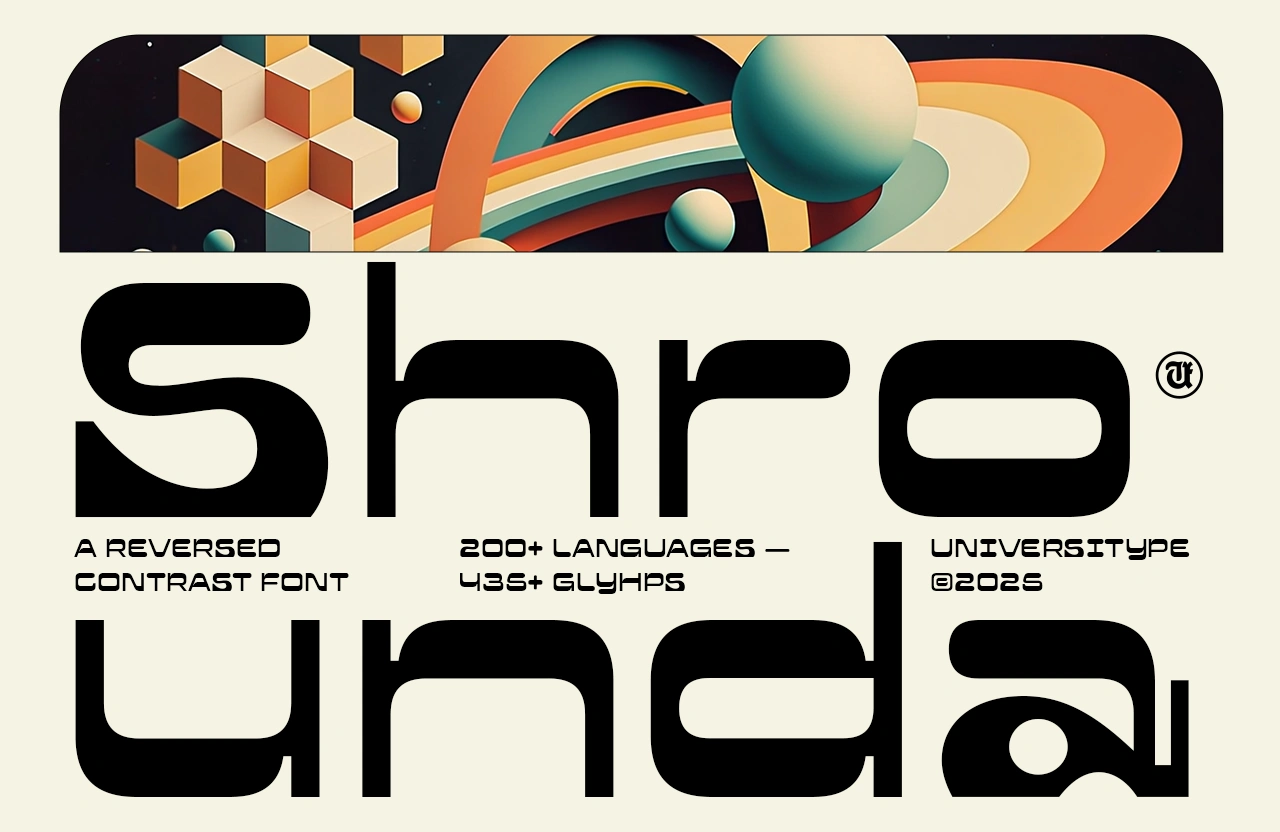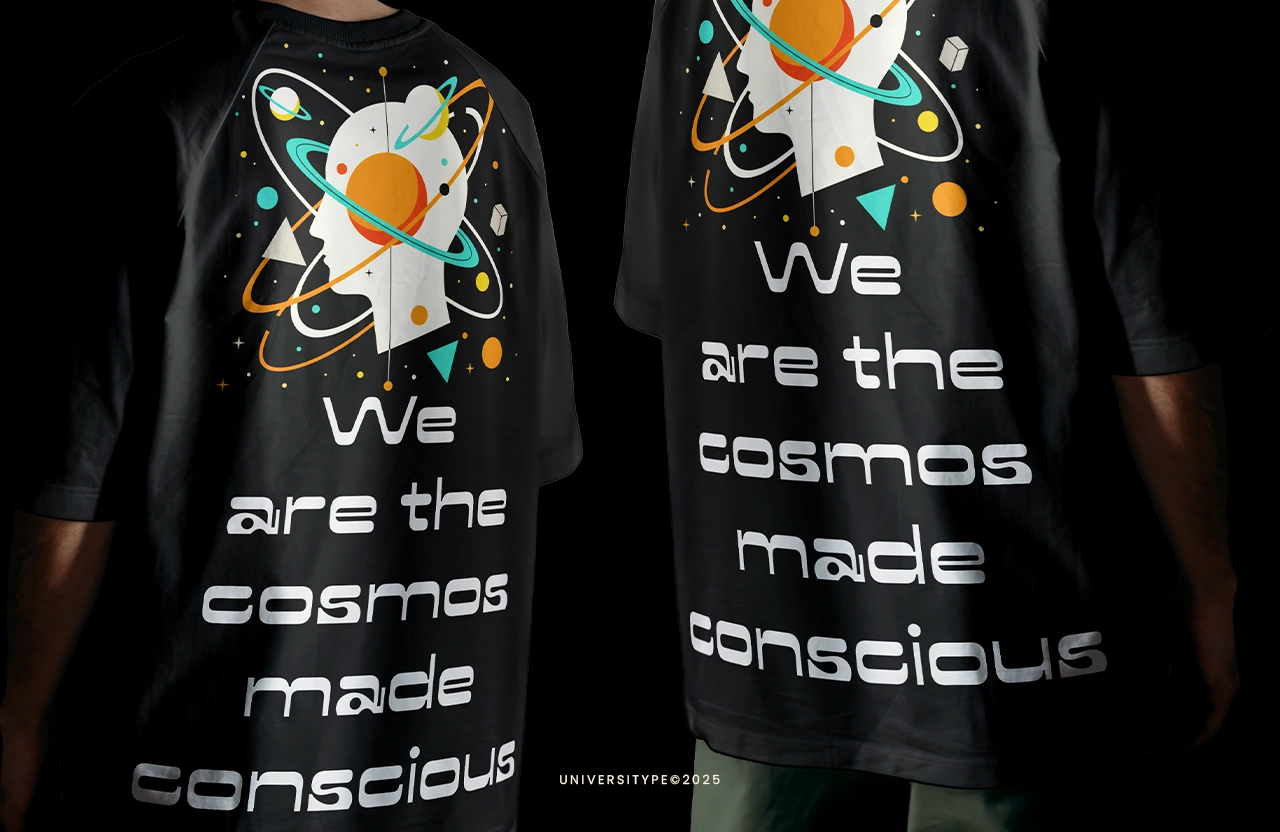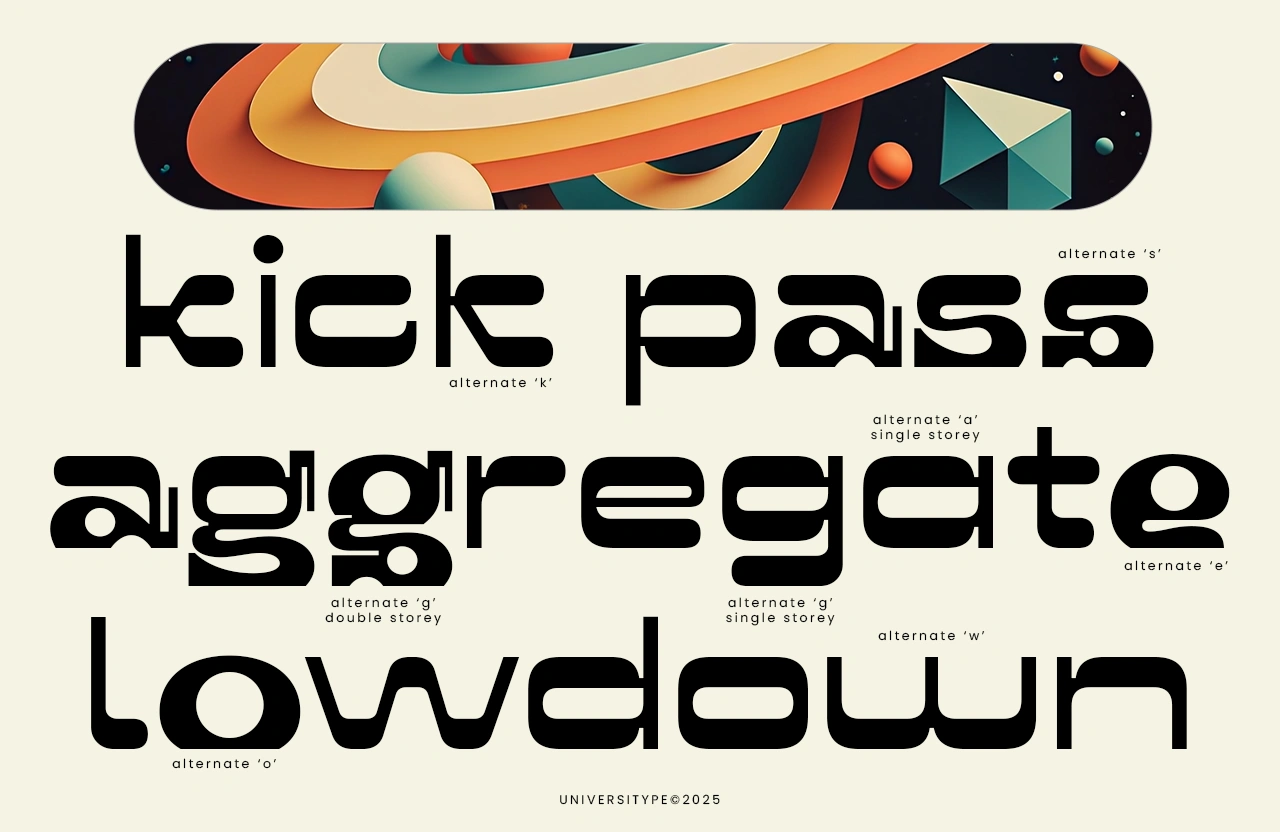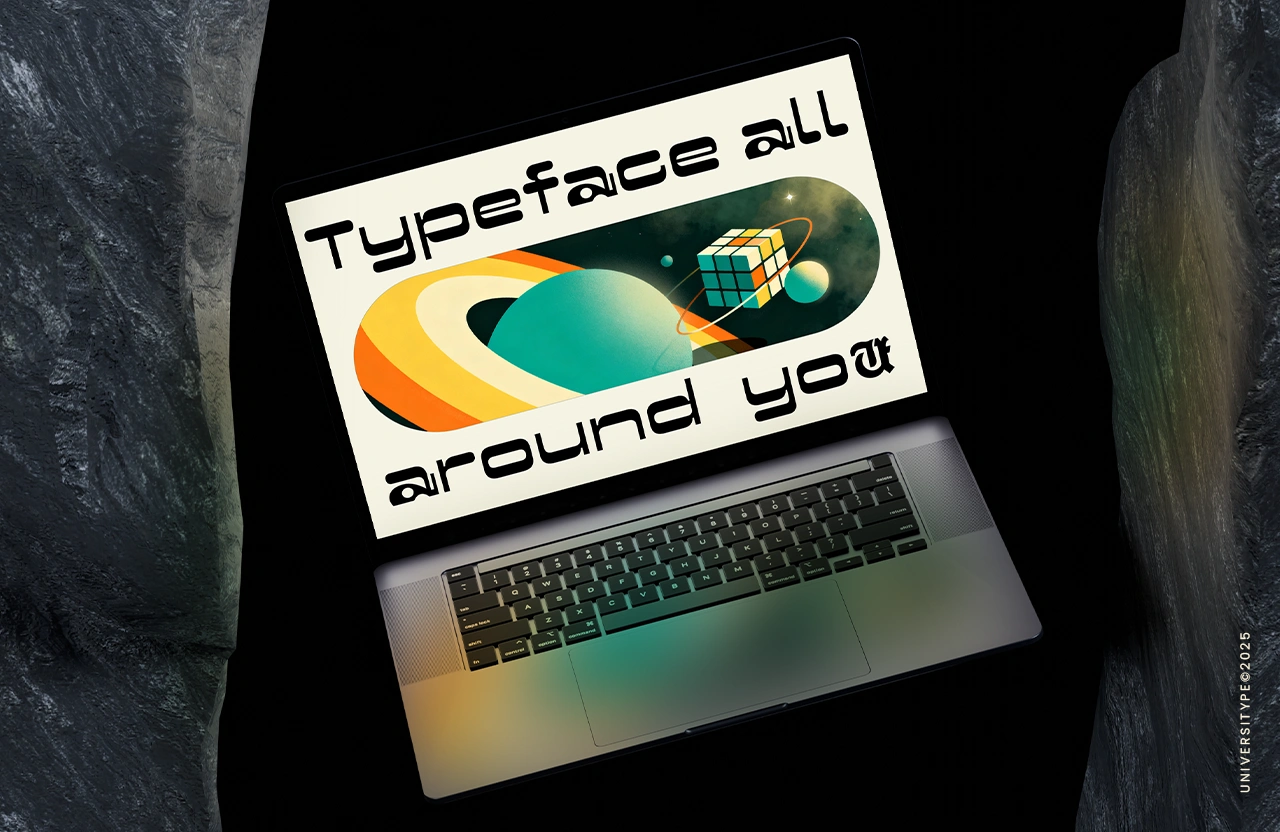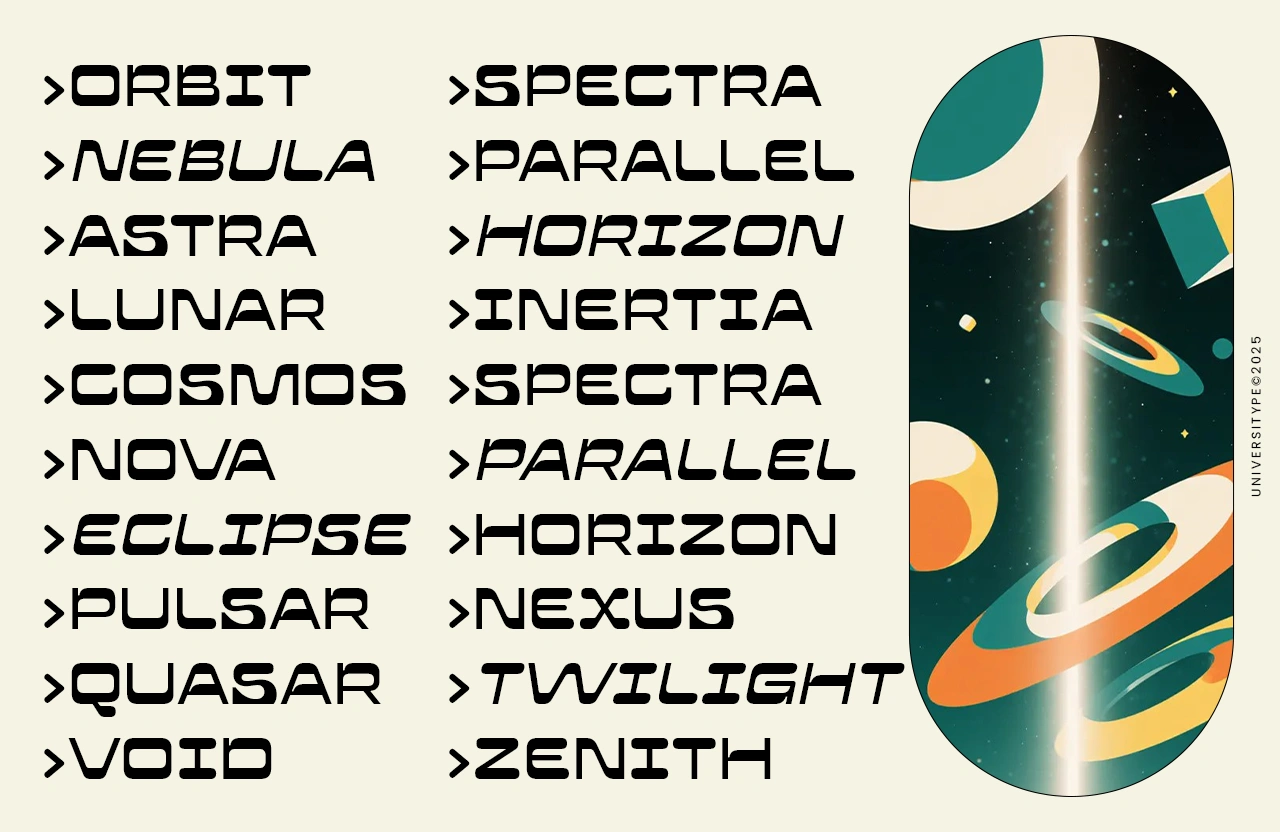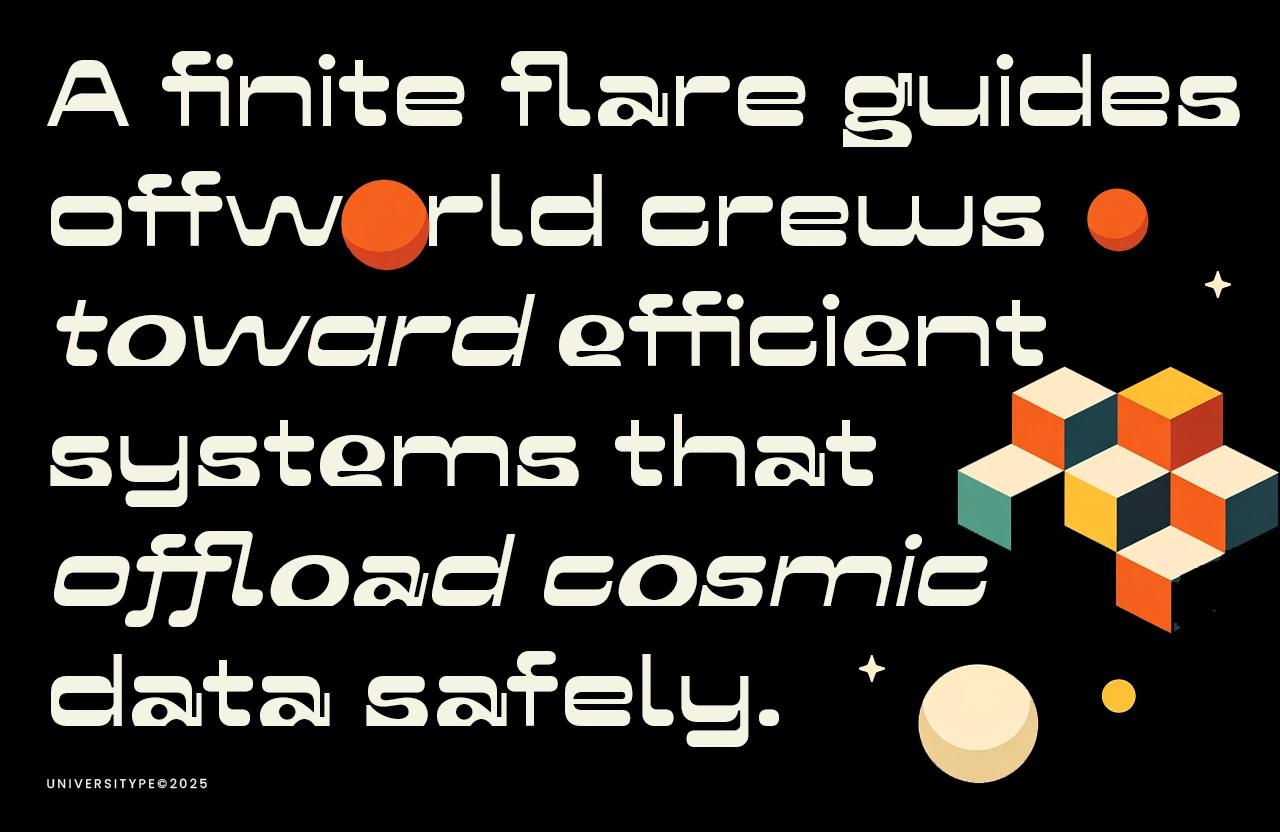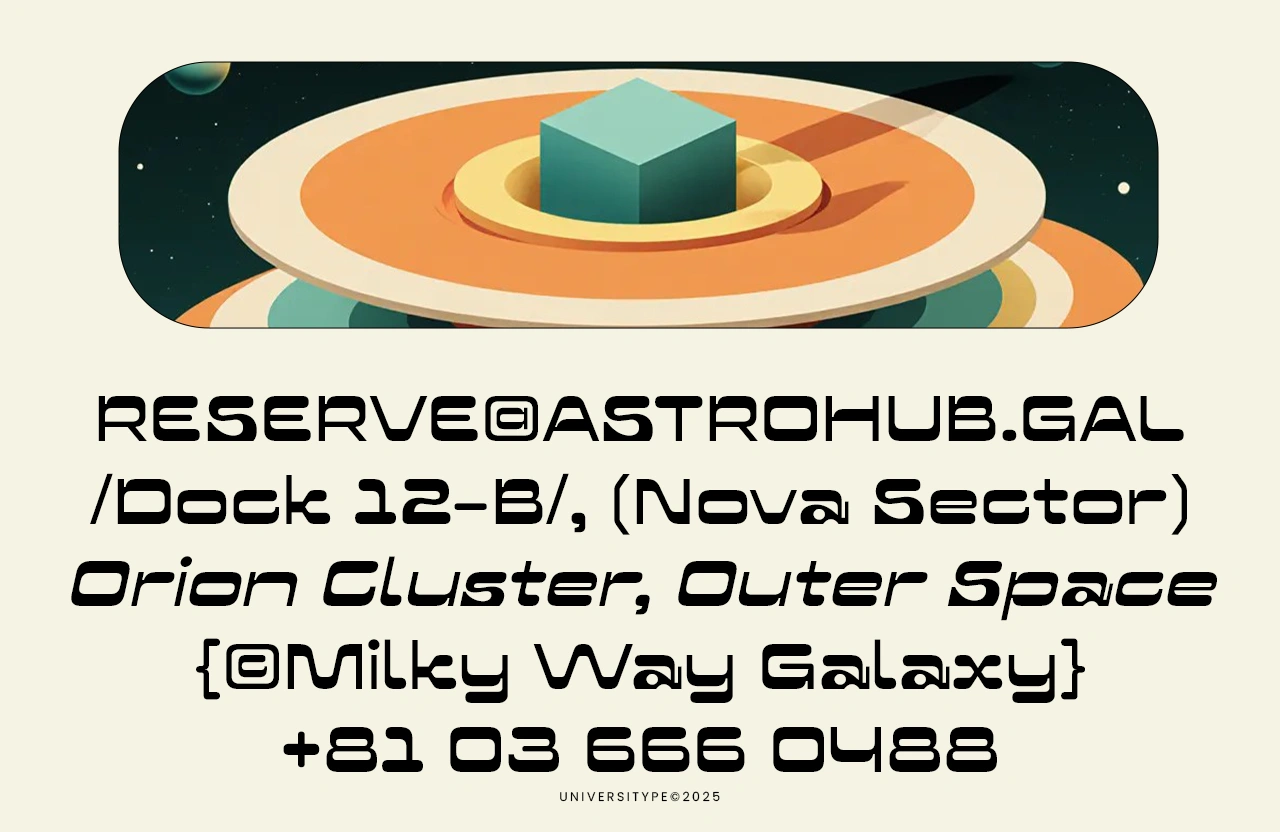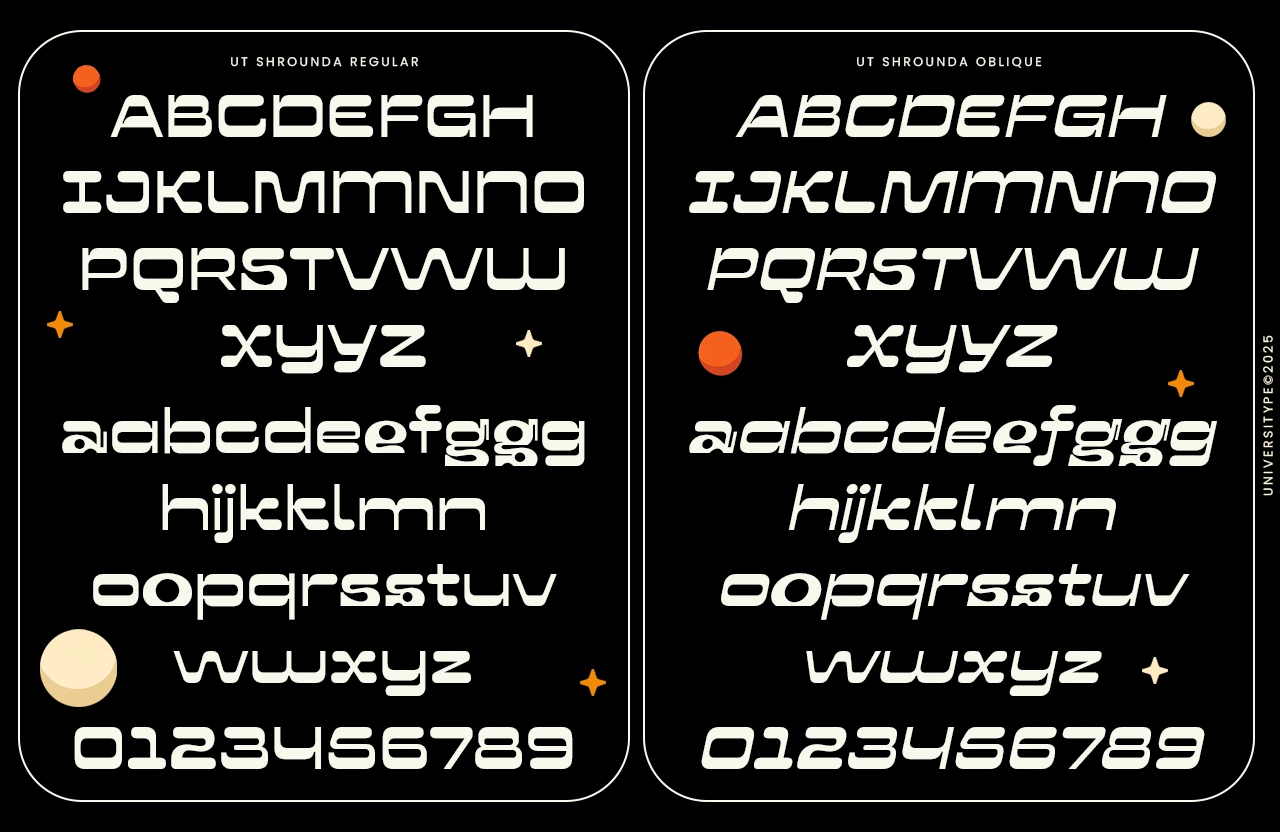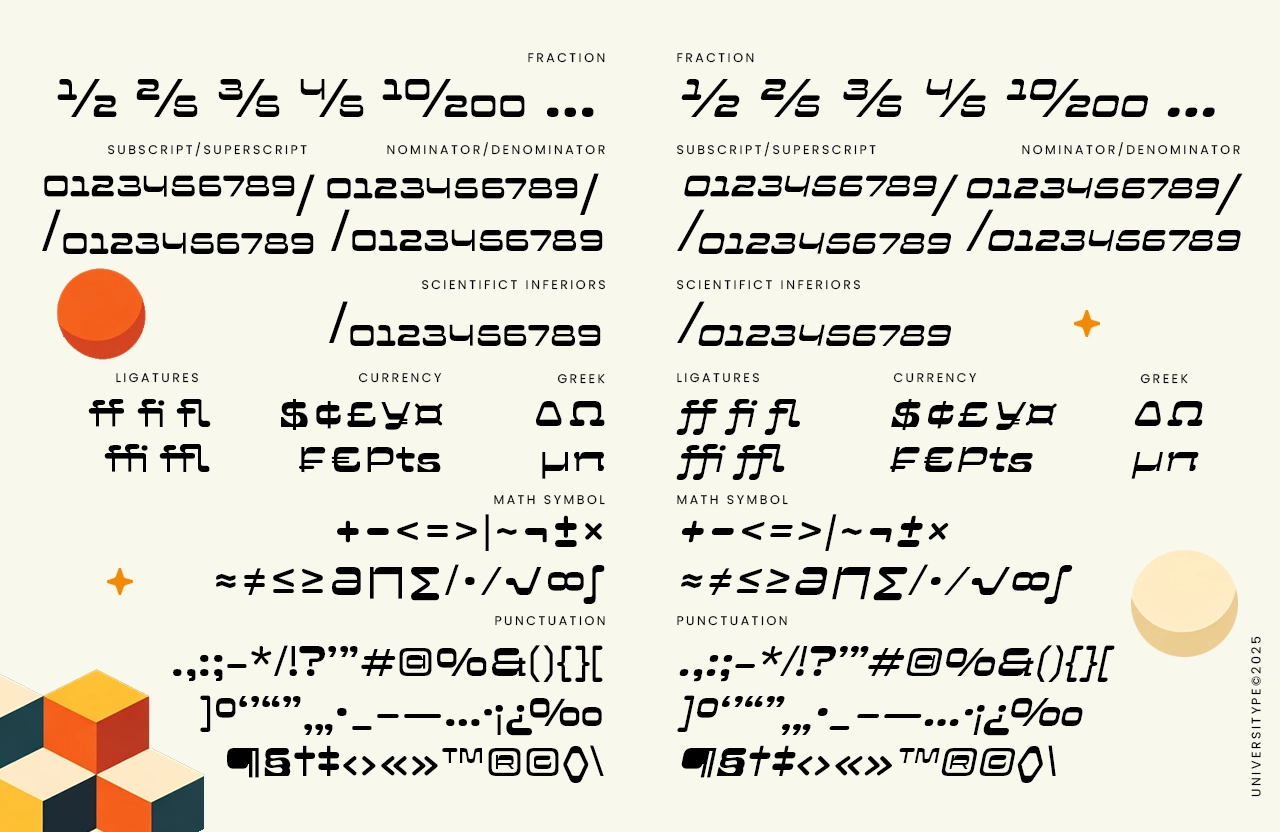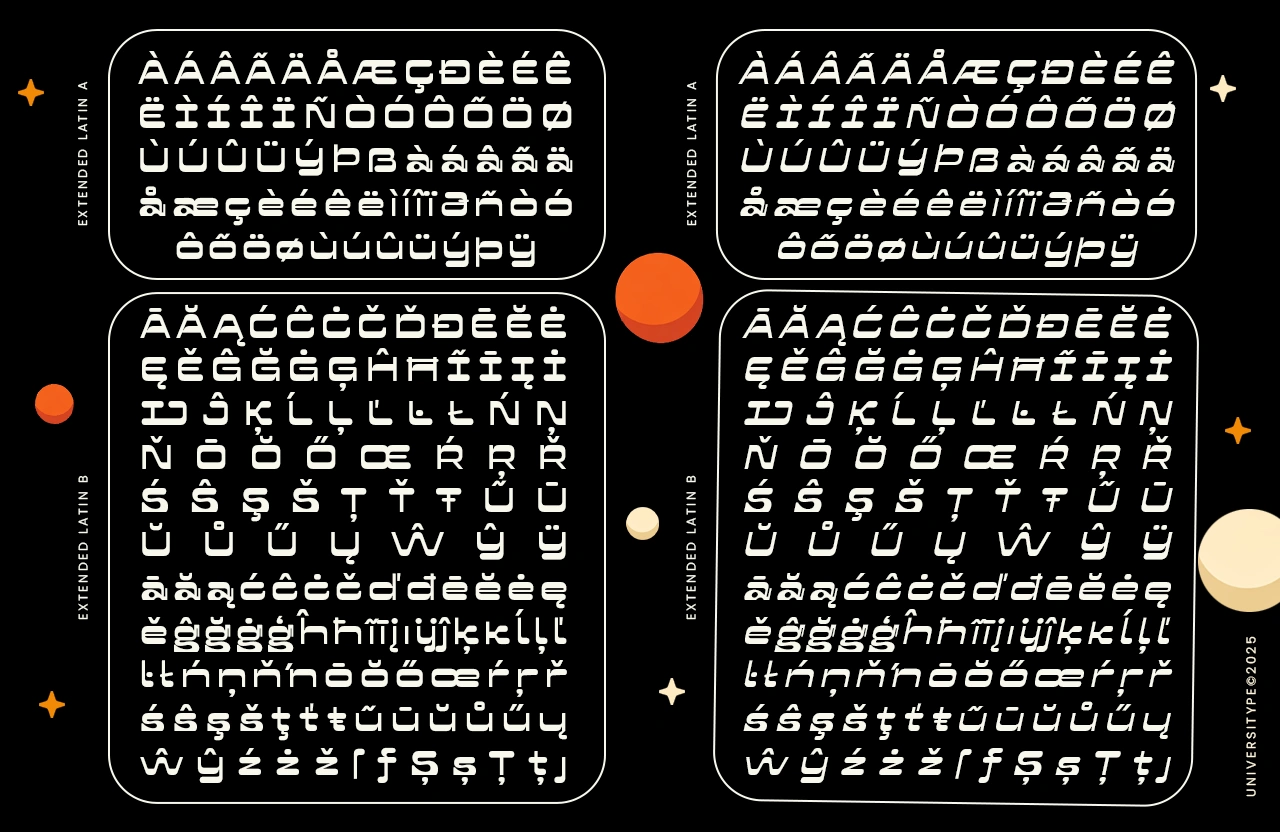
UT Shrounda
UT Shrounda is a bold experimental display typeface built on reversed contrast logic. Instead of stressing vertical strokes, the weight sits firmly on the horizontals, giving each letter a grounded, architectural presence. The result feels futuristic yet familiar, mechanical yet expressive. Shrounda carries a steady visual cadence that pulls the eye forward, line by line.
UT Shrounda — A Reverse Contrast Typeface
UT Shrounda is a bold experimental display typeface built on reversed contrast logic. Instead of stressing vertical strokes, the weight sits firmly on the horizontals, giving each letter a grounded, architectural presence. The result feels futuristic yet familiar, mechanical yet expressive. Shrounda carries a steady visual cadence that pulls the eye forward, line by line.
Designed to stand out fast and stay memorable.
Target Audience
• Sci-Fi & Tech Brands
Ideal for gaming studios, software products, aerospace projects, and forward-looking startups.
• Experimental Graphic Designers
Suited for posters, record covers, exhibition graphics, and expressive editorial layouts.
• Apparel & Merch Designers
Strong silhouettes that translate cleanly onto prints, embroidery, and bold streetwear drops.
• Modern Web Designers
A striking choice for hero headlines and landing pages that need instant visual punch.
Key Features
• Reversed Contrast Structure
Heavy horizontals paired with slim verticals create a smooth visual flow across text.
• Two Complementary Styles
Regular for stability, Oblique for movement and direction.
• Wide Language Coverage
Supports 200+ languages with 435+ carefully constructed glyphs.
• Expanded Character Set
Greek letters, math symbols, advanced punctuation, and technical marks included.
• OpenType Features
Built-in ligatures and fraction support for refined, professional typesetting.
Inspiration Behind the Design
UT Shrounda takes cues from Space Age visuals of the 60s and 70s, filtered through a contemporary digital mindset. The reversed contrast echoes ideas of spatial distortion, warped trajectories, and engineered movement. Each glyph feels structured, compressed, and intentional, like signage from a future imagined decades ago.
Usage Suggestions
• Headlines & Titles
Best used large, where its structure and rhythm can fully breathe.
• Logotypes & Branding
Strong enough to carry a brand name on its own.
• Short Statements & Callouts
Works well for slogans, pull quotes, and technical highlights.
• Large-Scale Applications
Billboards, exhibitions, signage, and architectural graphics feel right at home.
Generous x-height with compact ascenders and descenders for a solid, block-driven texture.
• Ligatures: ff, fi, fl, ffi, ffl
• Numerals: subscript, superscript, numerators, denominators, scientific inferiors
• Symbols: currency set, math operators, full Greek alphabet